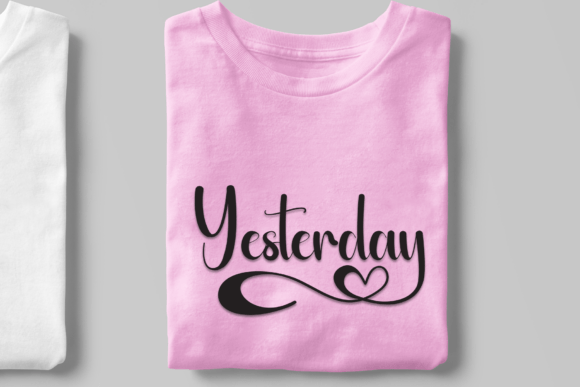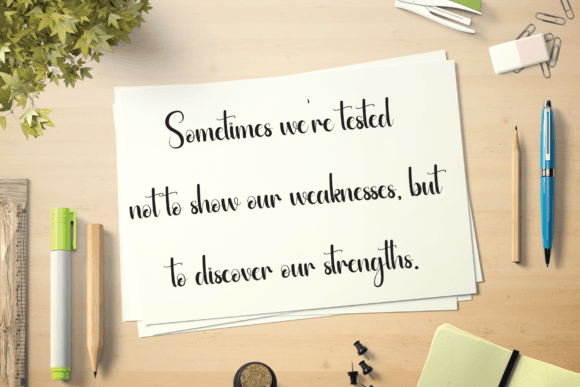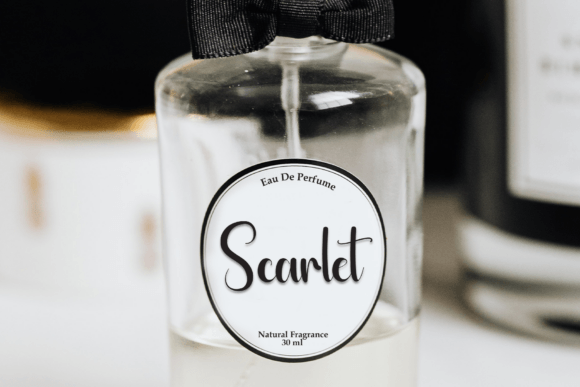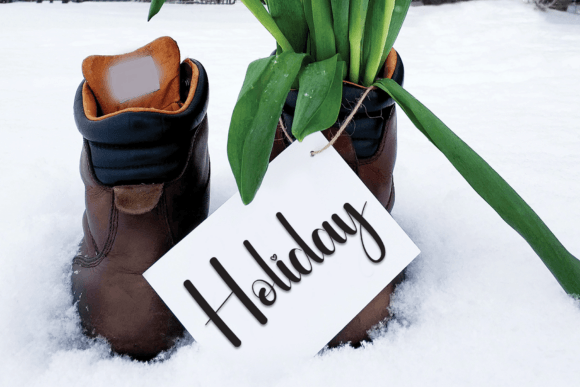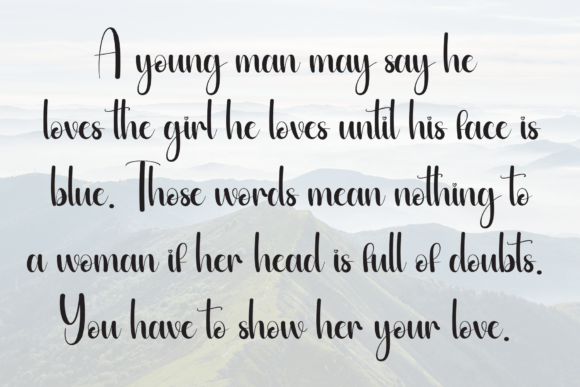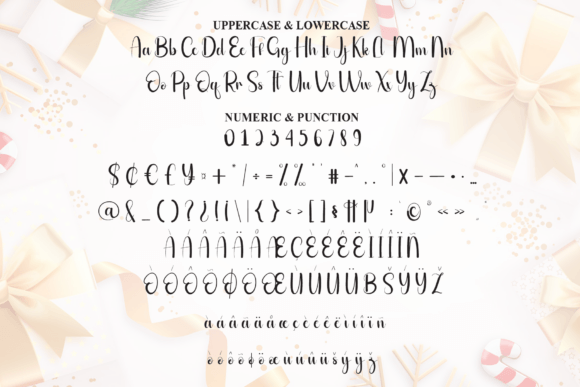
Embracing Whimsy: The Birth of Birthday Font
Have you ever found yourself in a creative rut, staring at a blank page, and suddenly, a spark of inspiration strikes? Perhaps it’s the memory of a childhood birthday party, or the thrill of planning a special occasion for a loved one. Whatever the trigger, it’s moments like these that remind us of the power of design to evoke emotions and bring people together.
Enter Birthday Font, a delightful handwritten display font that captures the essence of celebration and joy. This charming font is designed to add a touch of whimsy and personality to any design project, from wedding invitations to personalized cards. For designers, Birthday Font offers a unique opportunity to infuse their work with warmth and sophistication, making it a valuable addition to any creative toolkit.
Whether you’re a seasoned pro or a budding designer, Birthday Font is sure to inspire your next creative project and leave a lasting impression on your audience.
Birthday Font Key Features
- Unique Characteristics: Features a playful, cursive design with decorative flourishes, making it perfect for birthday invitations, cards, and other celebratory materials.
- Font Style: Available in both regular and bold styles, providing versatility for different design applications.
Birthday Font Review
I recently had the chance to work with the Birthday Font, and I must say it was a unique experience. Here’s my honest review.
- Celebratory vibe: The font definitely captures the playful and festive atmosphere of a birthday celebration.
- Customization options: The font comes with various customization options, allowing designers to adjust the font size, color, and more.
- Fun and creative: The font is perfect for designers who want to add a touch of whimsy and fun to their projects.
- Limited legibility: In certain font sizes and styles, the text can become difficult to read.
- Not suitable for formal projects: The font’s playful nature makes it less suitable for formal or professional projects.
- Dependence on context: The font’s effectiveness relies heavily on the context in which it’s used.
Overall, the Birthday Font is a great choice for designers who want to add a touch of fun and creativity to their projects. However, it’s essential to consider the limitations and use it judiciously. With the right project and design, this font can be a real showstopper.
To get the most out of the Birthday Font, try the following:
- Use it in combination with other celebratory graphics, such as balloons and confetti.
- Use it to create a birthday banner or invitation.
The Birthday Font is commonly used for:
- Birthday invitations and cards.
- Birthday banners and decorations.
- Personalized birthday gifts and party favors.
Alternatives to “Birthday Font” for Designers
Great Vibes is a modern and elegant script font perfect for adding a touch of sophistication to birthday invitations, cards, and decorations. It features flowing lines and a relaxed feel, making it ideal for casual and creative designs.
Compared to Birthday Font, Great Vibes is more refined and less playful, but still conveys a sense of joy and celebration. It’s a great choice for designers who want to add a touch of elegance to their birthday designs.
Carolyna Pro is a beautiful and elegant script font that’s perfect for adding a touch of luxury to birthday invitations, cards, and decorations. It features intricate details and a sophisticated feel, making it ideal for formal and high-end designs.